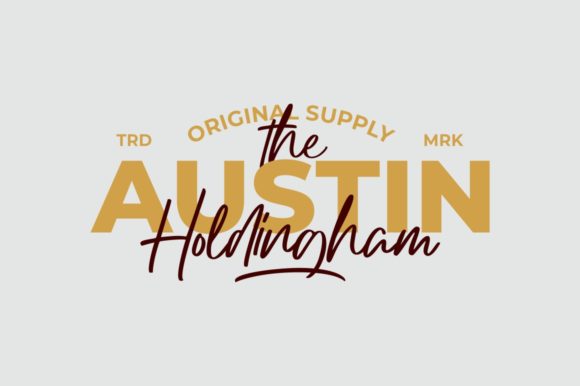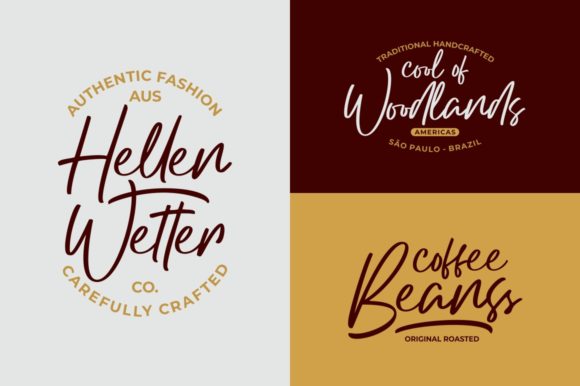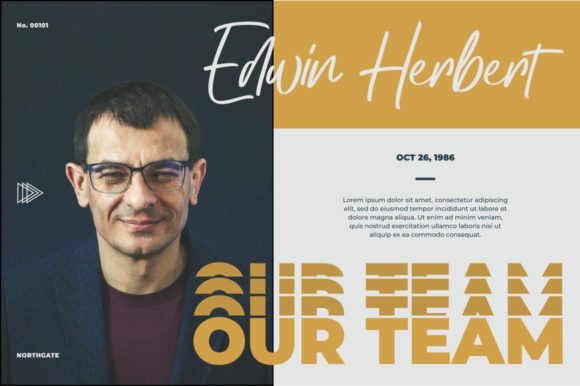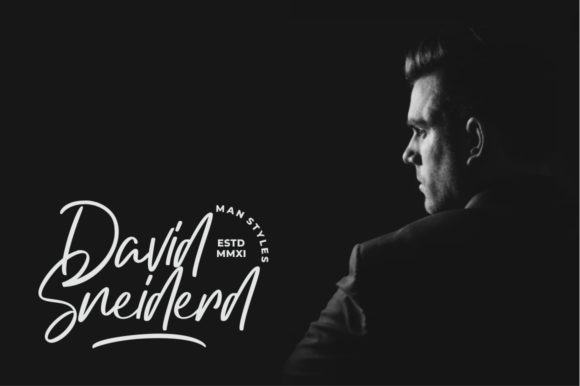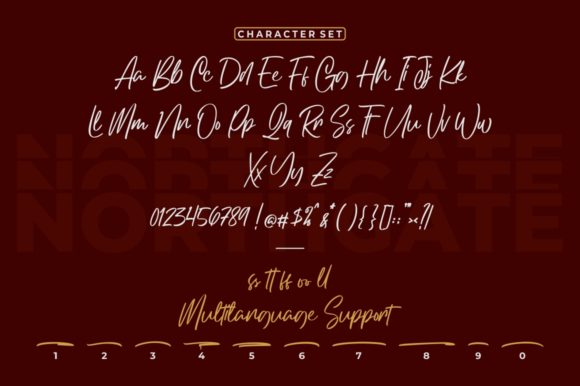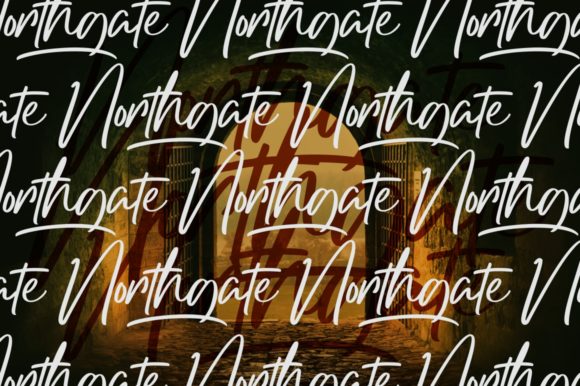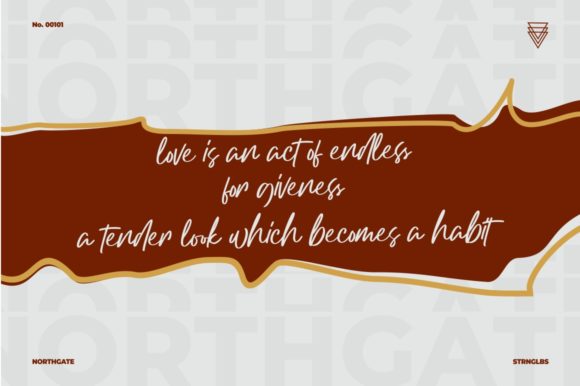
Northgate Font
About Northgate Font
Northgate delivers an incredibly bold and unique font experience. This script will make a great addition to any crafter’s toolbox.